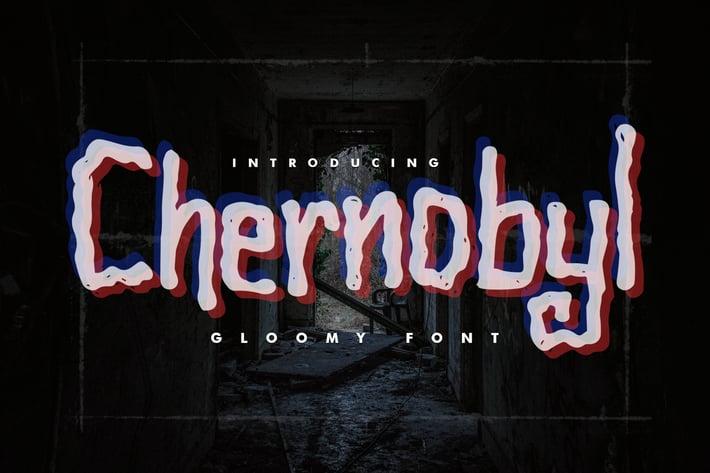
Chernobyl - Gloomy Font
Chernobyl is perfect to use for Logotype, Letterhead, Poster, Apparel Design, Label and etc.
The alternative characters were divided into several features such as Stylistic Alternates and Ligature.
Fonts include Multilingual Support